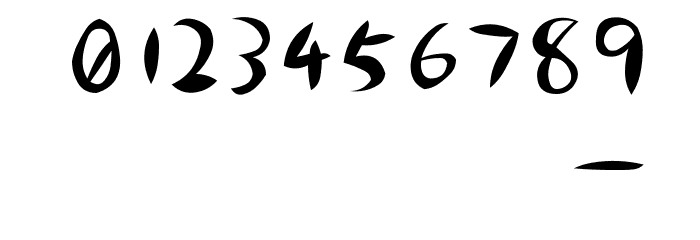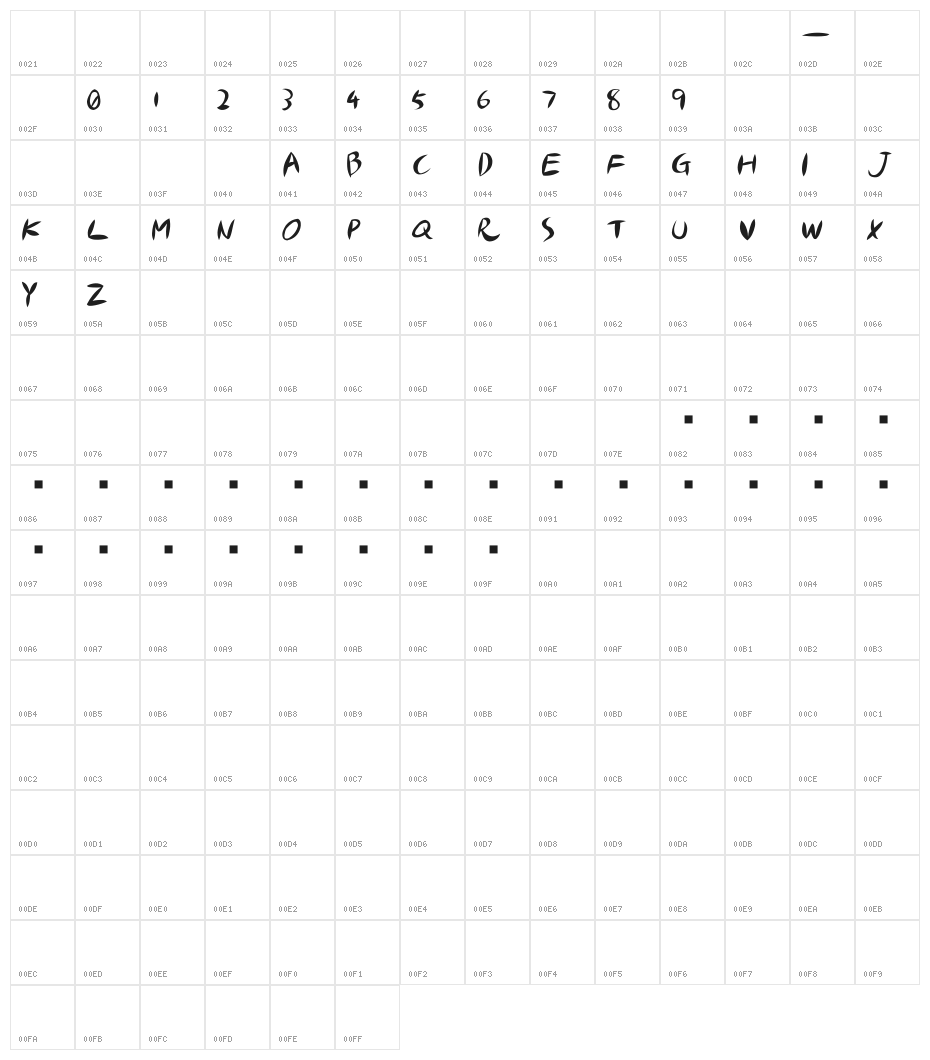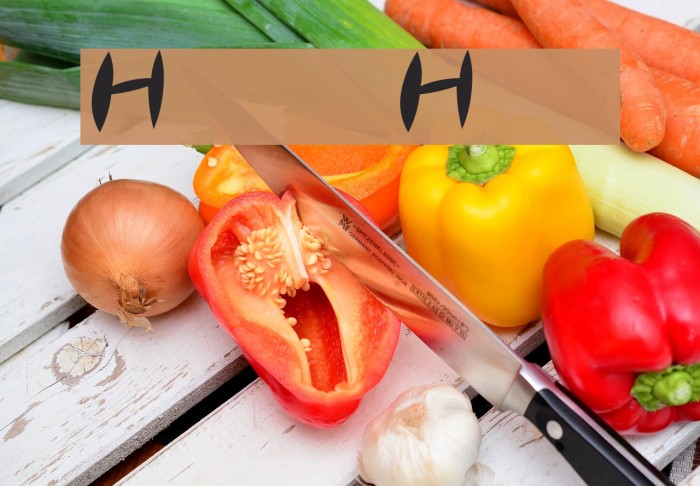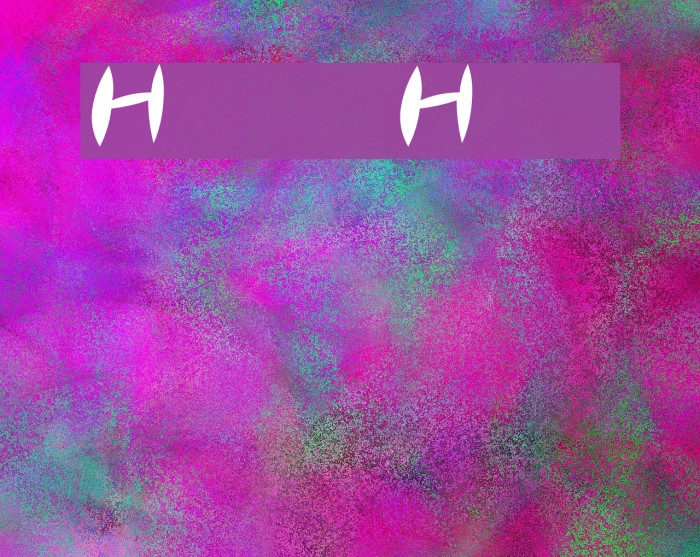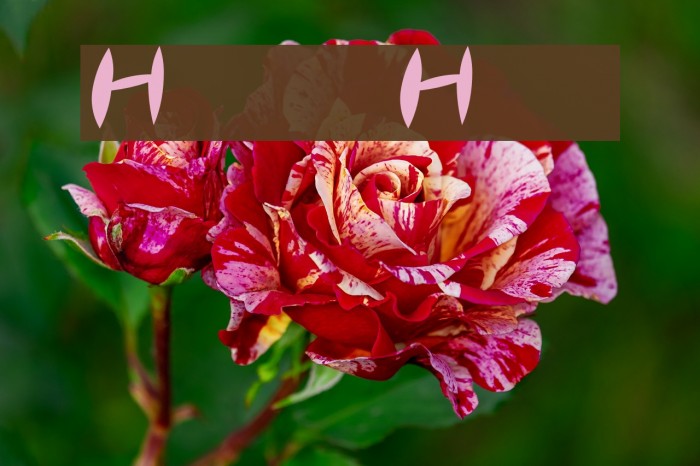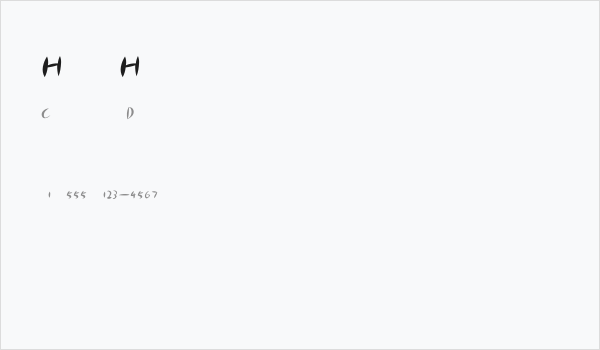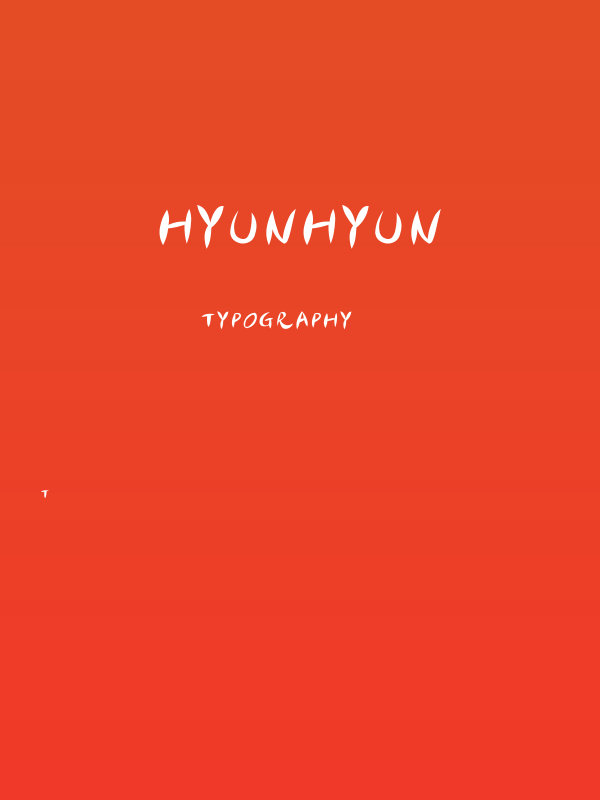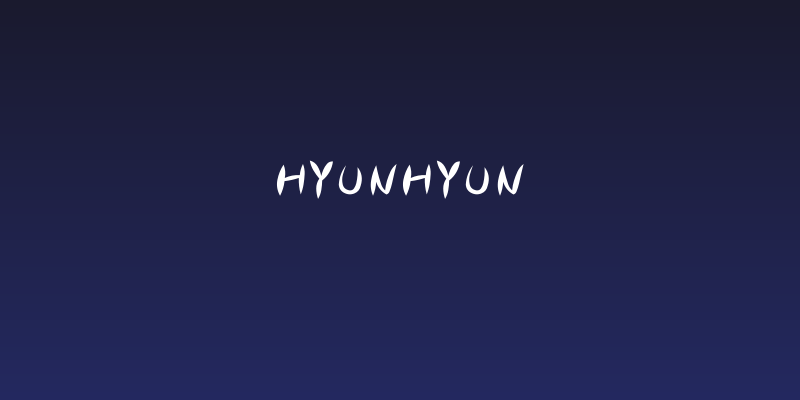
HyunHyun Font
HyunHyun Description
This font features a bold and dynamic script style with a hand-drawn appearance. The characters have a fluid, brush-like quality, giving them an energetic and artistic feel. The strokes are thick and expressive, with varying widths that create a sense of movement and rhythm. The uppercase letters are slightly slanted, adding to the dynamic nature of the font. The numbers and special characters maintain the same lively style, ensuring consistency across all elements. This font is ideal for projects that require a personal and creative touch, such as invitations, posters, or branding materials.
| Proposed Projects | Ideal for creative projects like invitations, posters, and branding materials. |